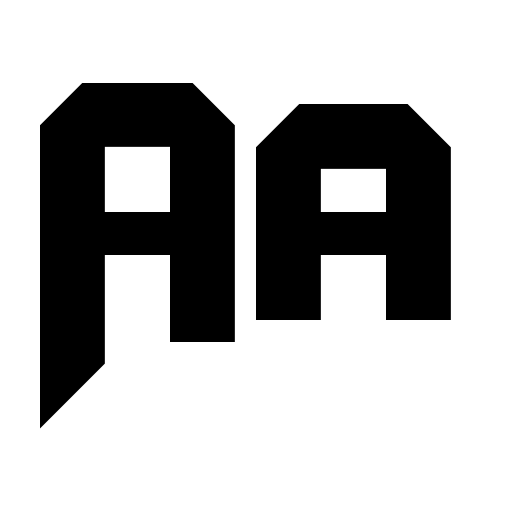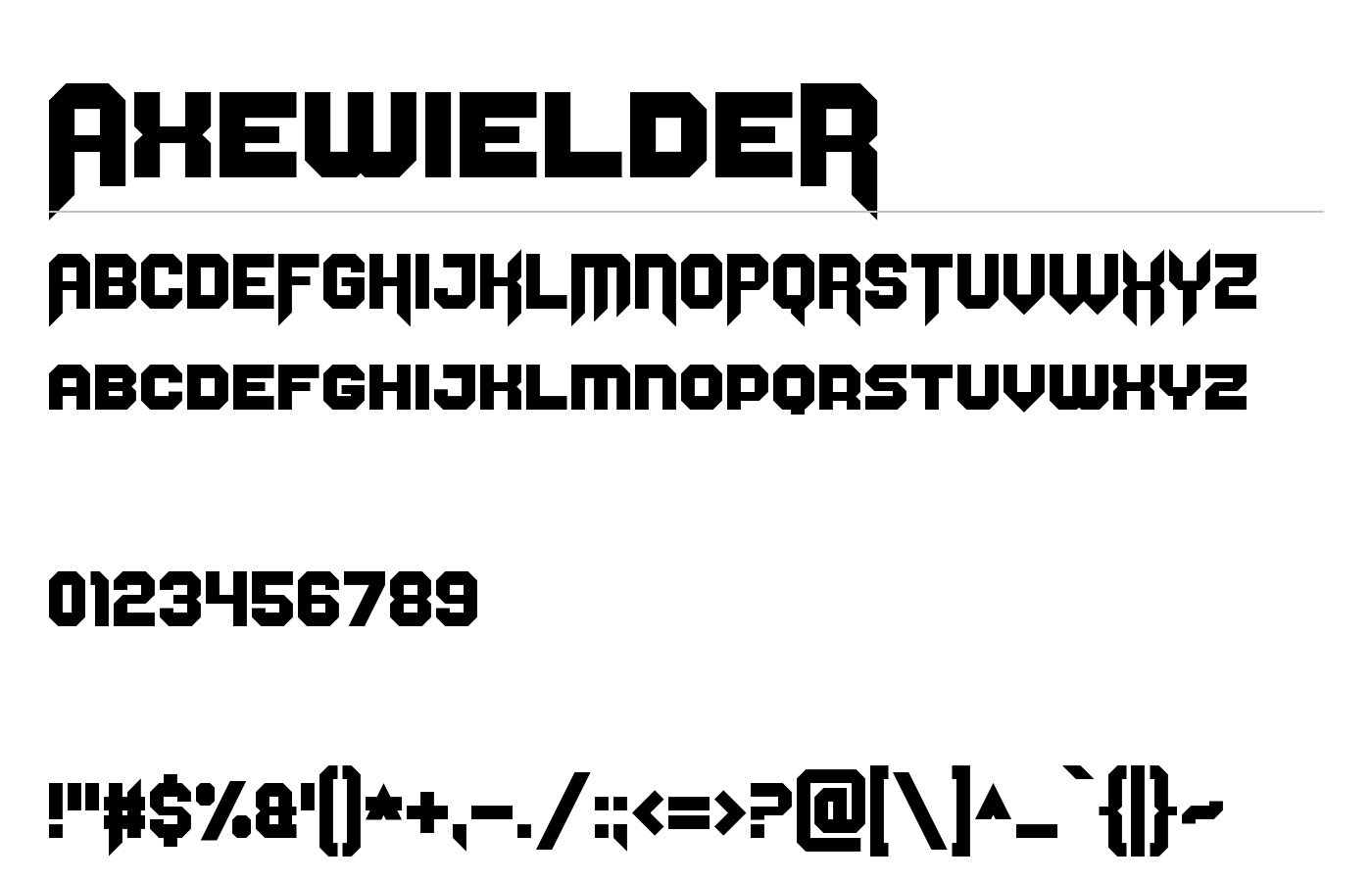
AxewieldeR is a bold, angular sans serif font with a strong, geometric structure and sharp, edgy details that give it a futuristic, tech-inspired vibe. Its heavy weight and compact width make it ideal for impactful headlines, logos, and branding where a powerful, modern look is needed. This font works best in designs aiming to convey strength, innovation, and a cutting-edge aesthetic.
AxewieldeR Font
About AxewieldeR Font
| Font family | AxewieldeR Font |
| Designer | GameDevDan |